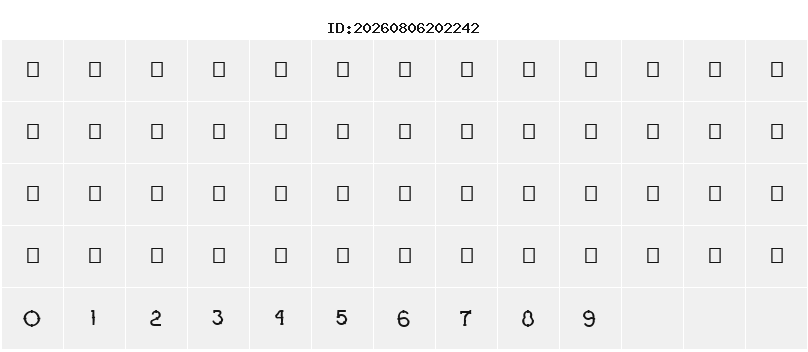
• Font Name: Ograda
• Designer: Kuzmichev risoval
About Ograda.ttf
Ograda.ttf is a modern, elegant sans-serif font designed for ultimate readability and visual harmony. Perfect for branding, headlines, web design, and print materials.